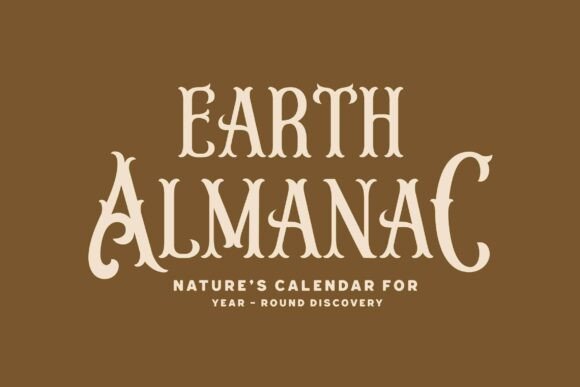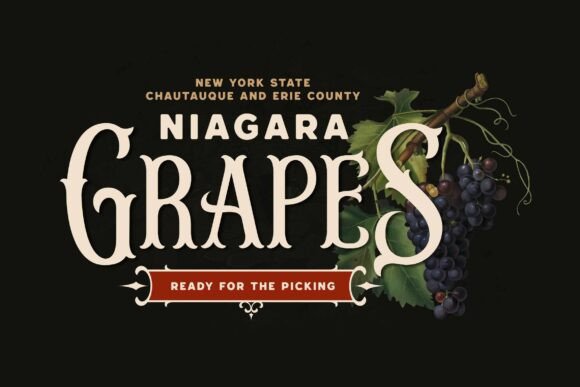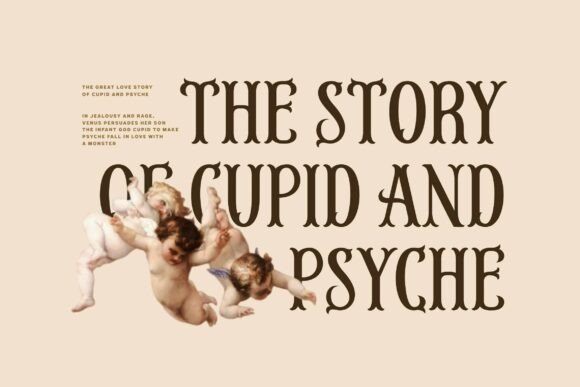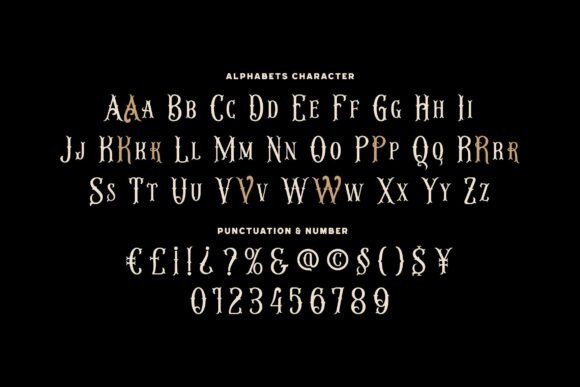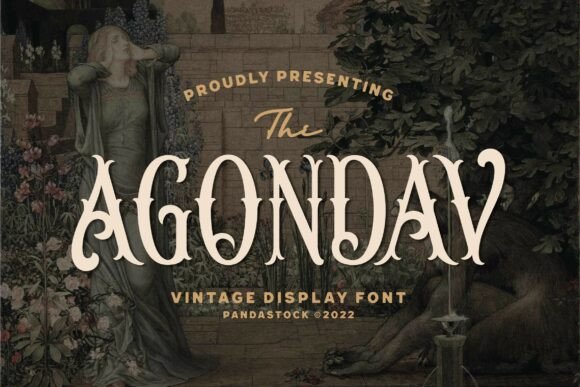
Introducing Agondav: A Victorian Vintage Font for Bold Titles and Ornate Branding
In the world of typography, few fonts evoke the essence of Victorian elegance and sophistication as effectively as Agondav. This stunning Victorian vintage font is meticulously crafted for bold titles and ornamental branding, making it an ideal choice for designers and crafters seeking to add a touch of classic charm to their projects. Agondav seamlessly blends the ornate characteristics of 19th-century Tuscan showcards with the flowing lines of early Art Nouveau book jackets, resulting in a truly unique and captivating font.
Distinctive Characteristics of Agondav
Agondav’s design is marked by several distinctive characteristics that set it apart from other fonts. The letterforms feature:
- Tall vertical stress: This gives Agondav its statuesque and theatrical appearance, making it perfect for headlines and titles that demand attention.
- Strong stroke contrast: The dramatic contrast between thick and thin strokes adds depth and elegance to the font, making it suitable for a wide range of applications.
- Sculpted, flared serifs: These beautifully crafted serifs curl into teardrop terminals, adding a touch of sophistication and refinement to the font.
- Scooped shoulders: This distinctive feature adds a sense of fluidity and movement to the letterforms, making them more dynamic and engaging.
- Daggered entry and exit strokes: These carefully crafted strokes enhance the font’s elegance and precision, making it ideal for high-end branding and design projects.
- Rounded counters: The warm, rounded counters help to maintain a sense of texture and tactility, preventing the font from feeling harsh or overly refined.
Versatility and Applications
Agondav’s versatility is one of its most compelling features. Whether you’re designing:
- Posters: Agondav’s bold, eye-catching letterforms make it perfect for creating stunning posters that grab attention.
- Book covers: The font’s elegant, refined appearance makes it an excellent choice for book covers, particularly for fiction, historical, or literary titles.
- Apothecary labels: Agondav’s vintage charm and sophistication make it an ideal fit for apothecary labels, adding a touch of classic elegance to packaging and branding.
- Editorial spreads: The font’s refined appearance and strong contrast make it perfect for editorial spreads, particularly in publications focused on fashion, lifestyle, or culture.
- Boutique logos: Agondav’s unique blend of Victorian and Art Nouveau influences makes it an excellent choice for boutique logos, helping businesses to establish a distinctive and memorable brand identity.
- Packaging: The font’s versatility and elegance make it suitable for a wide range of packaging applications, from luxury goods to food and beverage branding.
- Event titles: Agondav’s bold, attention-grabbing appearance makes it perfect for event titles, including weddings, galas, and other high-end events.
Why Choose Agondav?
Agondav offers a unique combination of style, elegance, and versatility, making it an excellent choice for designers and crafters seeking to add a touch of Victorian sophistication to their projects. With Agondav, you can:
- Create stunning headlines and titles: The font’s bold, eye-catching letterforms make it perfect for creating headlines and titles that demand attention.
- Establish a distinctive brand identity: Agondav’s unique blend of Victorian and Art Nouveau influences helps businesses to establish a memorable and distinctive brand identity.
- Add a touch of classic charm: The font’s elegant, refined appearance adds a touch of classic charm to any project, making it perfect for designers and crafters seeking to create timeless and sophisticated designs.
In conclusion, Agondav is a truly exceptional font that offers a unique blend of Victorian elegance and sophistication. Its versatility, distinctive characteristics, and elegant appearance make it an ideal choice for a wide range of design applications. Whether you’re a designer, crafter, or simply someone who appreciates beautiful typography, Agondav is sure to inspire and delight.